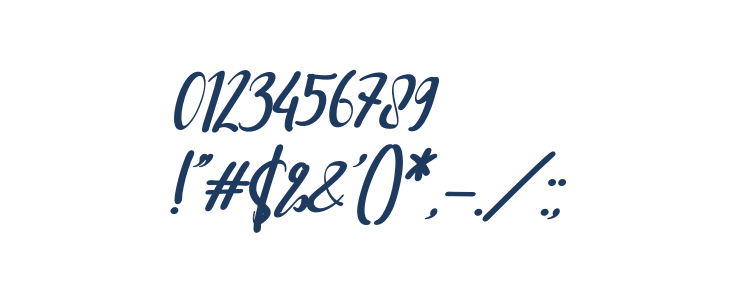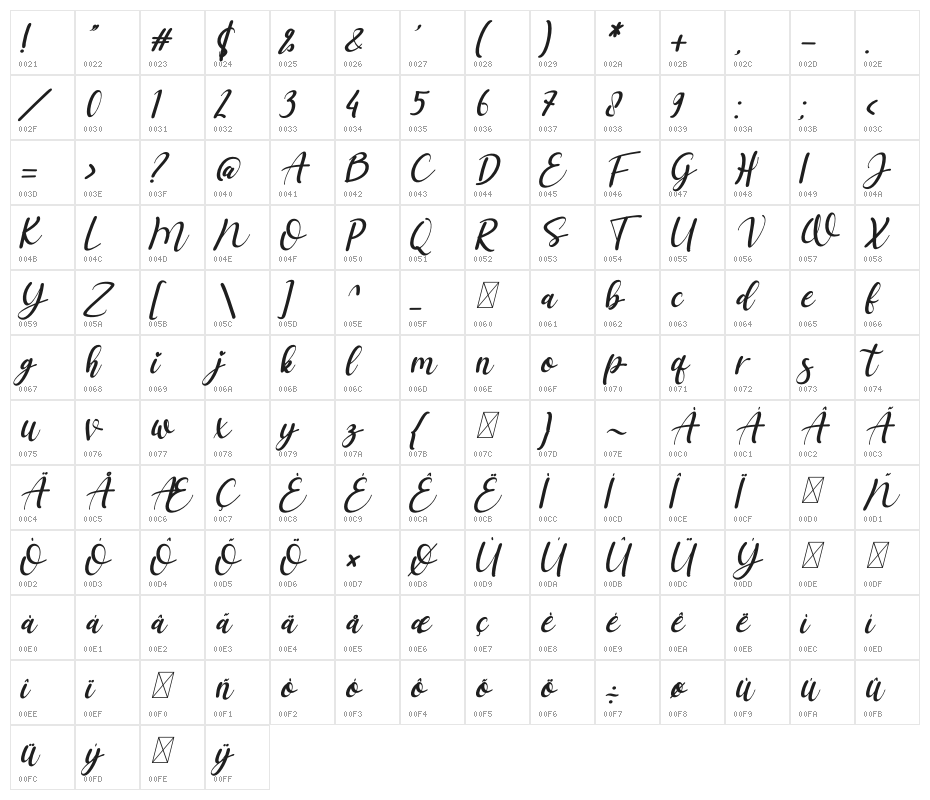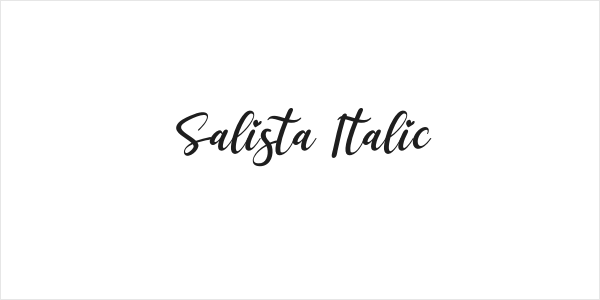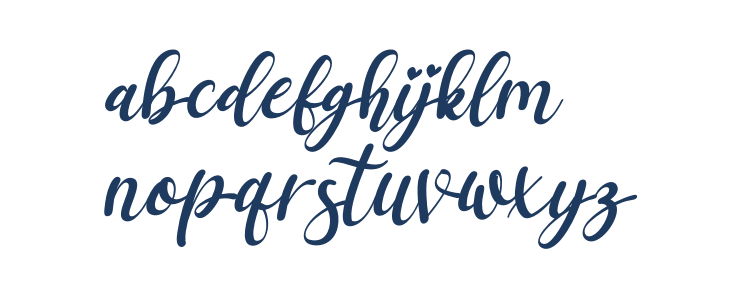
Salista Italic Font
Salista Italic Description
This font features a flowing, cursive style with elegant, sweeping strokes that convey a sense of sophistication and grace. The letters are connected, creating a seamless and fluid appearance. The uppercase letters are bold and prominent, while the lowercase letters maintain a consistent, harmonious flow. The numerals are stylishly integrated, matching the overall aesthetic. Special characters are crafted with the same attention to detail, adding to the font's versatility. This font is ideal for projects that require a touch of elegance and personal flair.
| Proposed Projects | Ideal for wedding invitations, greeting cards, branding, and elegant logos. |